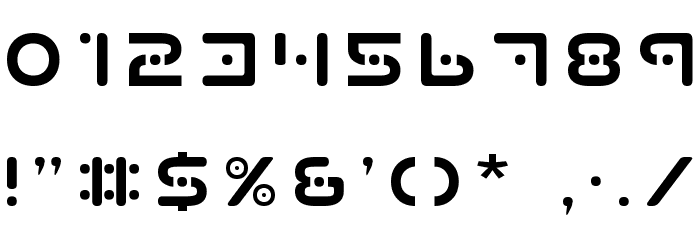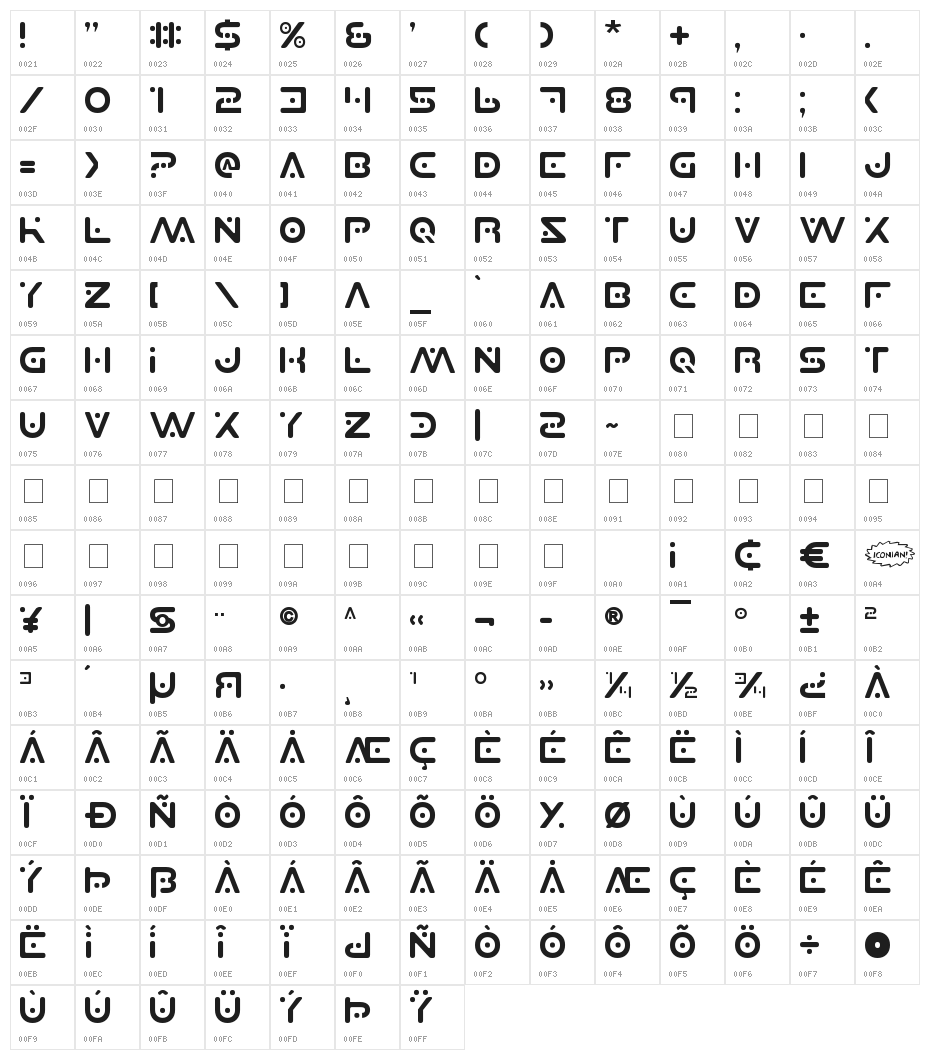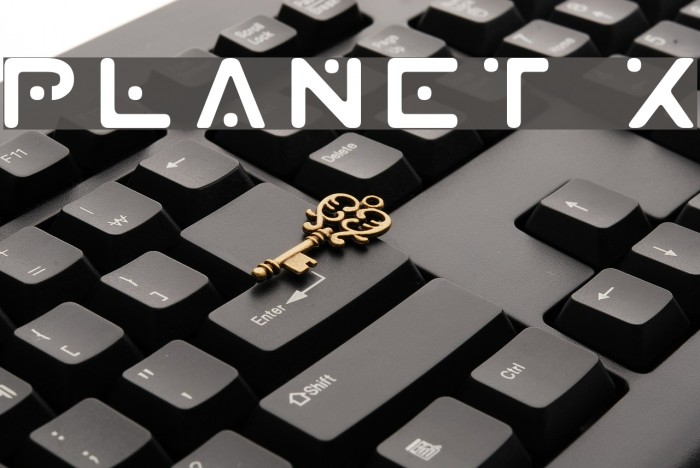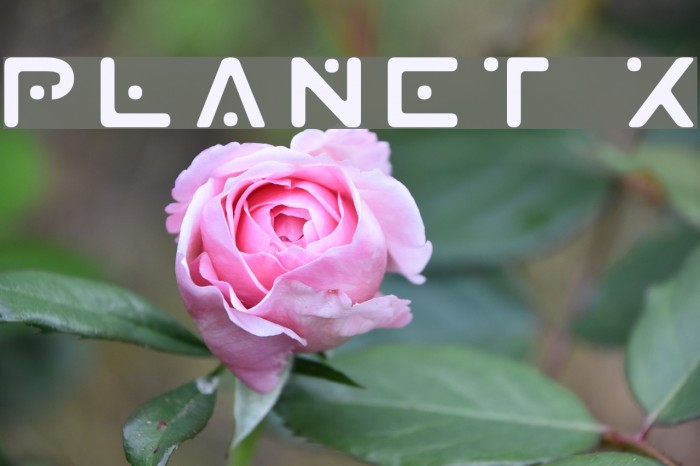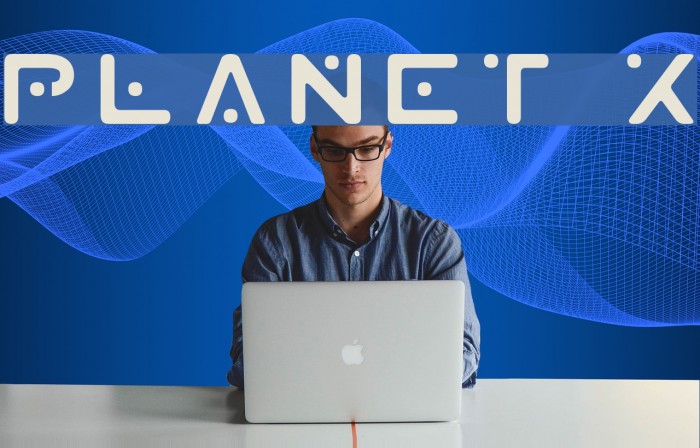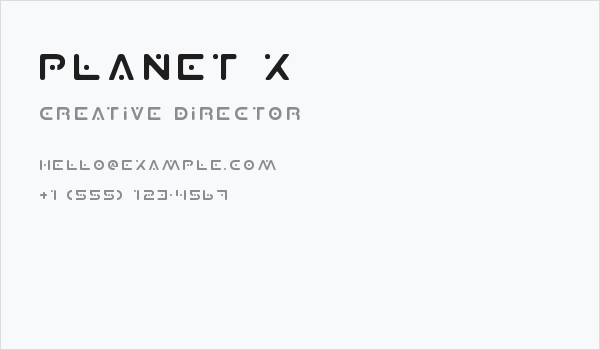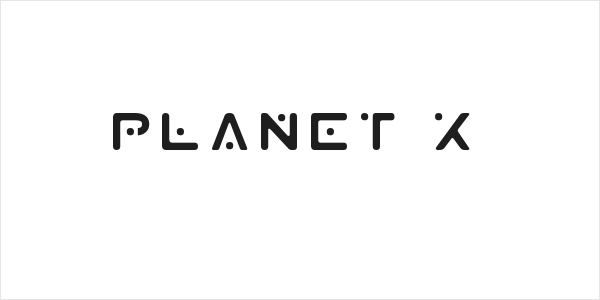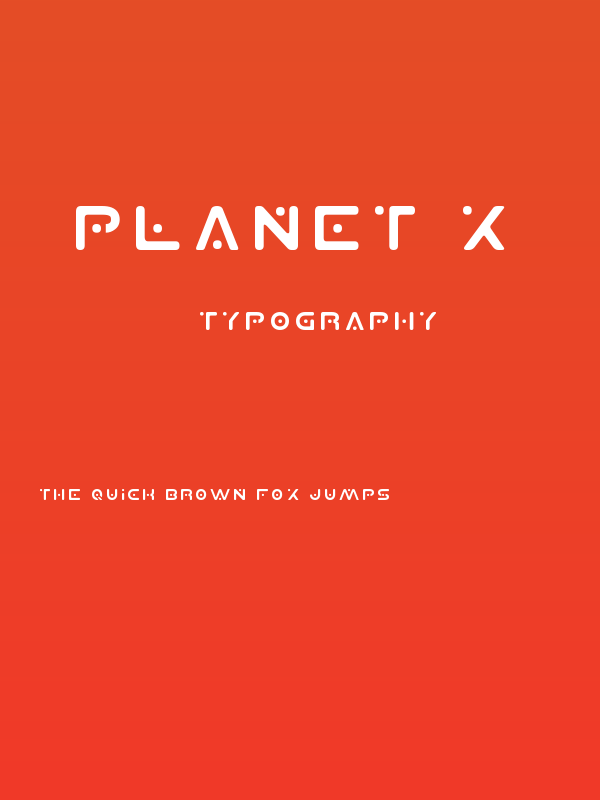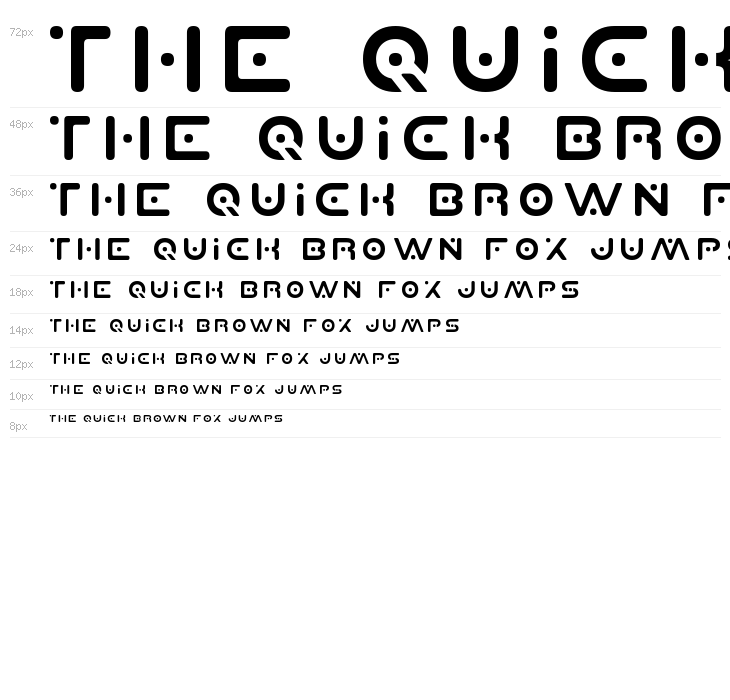
Planet X Font
Planet X Description
This font features a futuristic and geometric design, characterized by its bold and rounded letterforms. Each character is crafted with a unique combination of solid and hollow spaces, creating a sense of movement and innovation. The uppercase and lowercase letters maintain a consistent style, with distinct cutouts and circular motifs that add a modern touch. Numbers and special characters follow the same design principles, ensuring uniformity across all elements. This font's distinct style makes it ideal for projects that require a contemporary and tech-savvy appearance.
| Proposed Projects | Ideal for sci-fi themed designs, tech branding, video game interfaces, and modern advertising. |